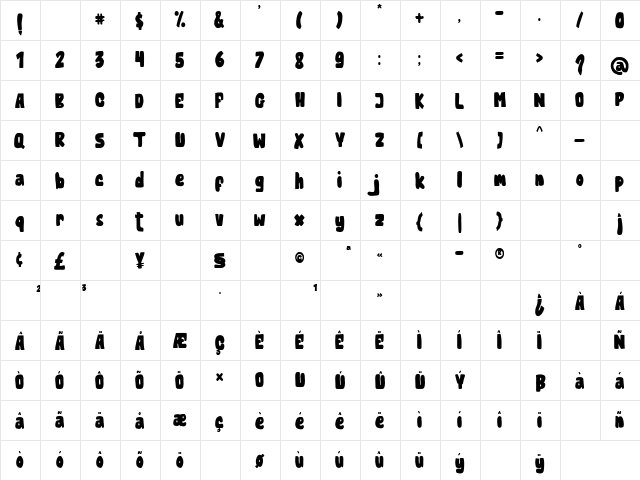
Harlem Boston Regular
| Foundry | Pollux of Geminorum |
| Designer | Pollux of Geminorum |
Design Context for Harlem Boston Typeface
Harlem Boston is a composed and adaptable typeface that performs quietly and consistently across a wide range of design contexts.